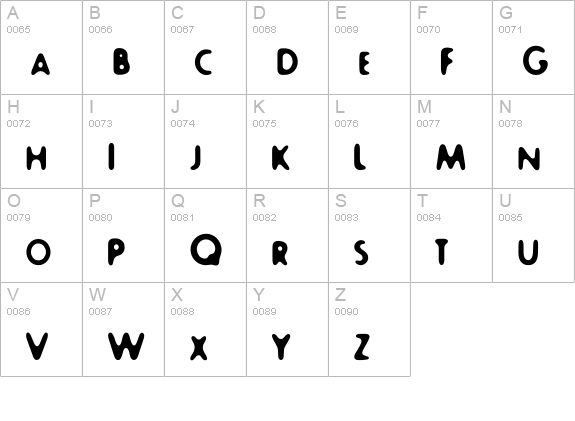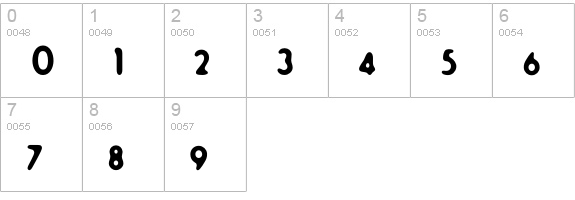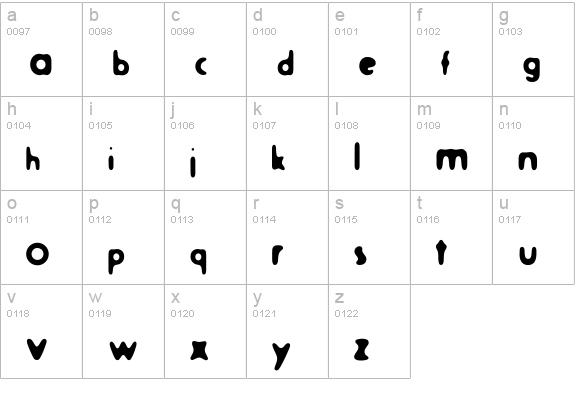
Fur-ExtraRounded Font Details
Fur-ExtraRounded is a playful and whimsical font that adds a touch of charm and friendliness to any design. With its rounded edges and smooth curves, this font exudes a soft and inviting feel that is perfect for projects seeking a warm and approachable look. The extra bold weight of Fur-ExtraRounded makes it stand out, while maintaining a sense of balance and readability. This versatile font is suitable for a wide range of design applications, from branding and packaging to social media graphics and children's books. Its unique character adds a touch of personality and originality to any project. Best of all, Fur-ExtraRounded is available for free download at FontsMarket.com. Whether you're a seasoned designer looking for a new favorite font or a beginner exploring typography for the first time, Fur-ExtraRounded is a must-have addition to your font collection. Download it today and let your creativity soar with this delightful and freely available typeface.